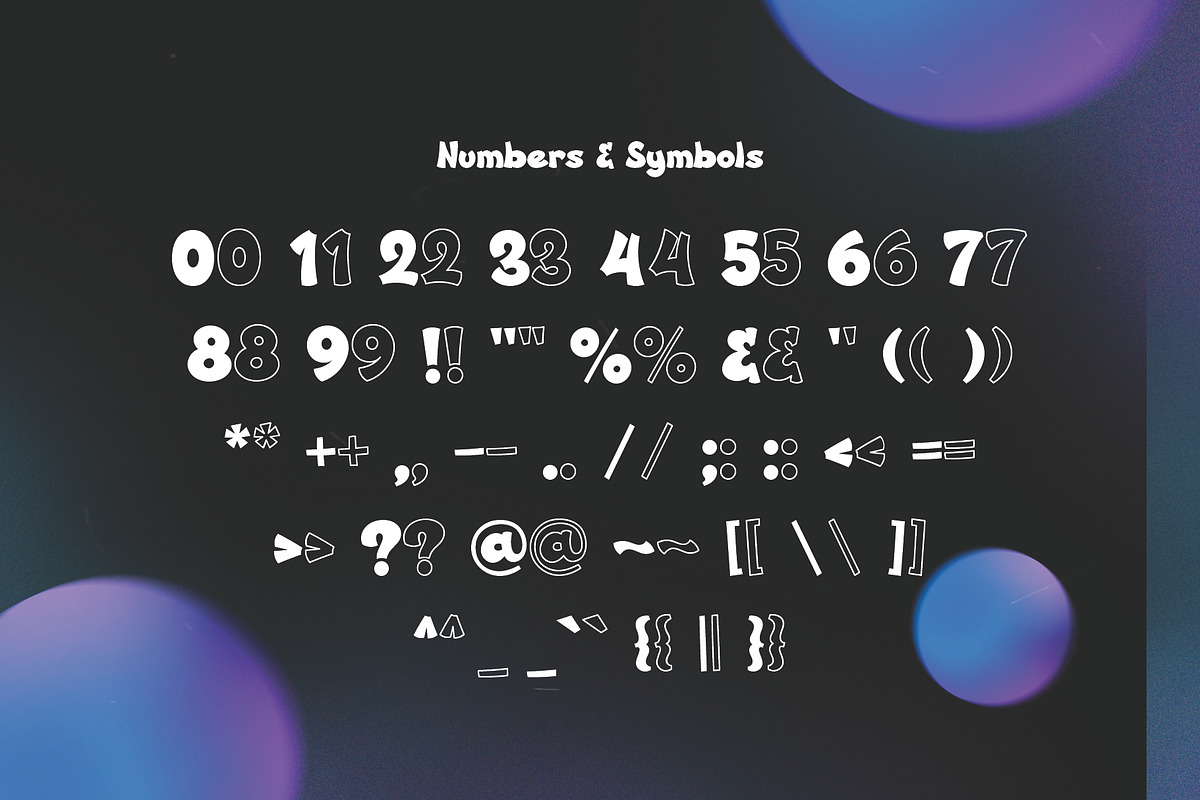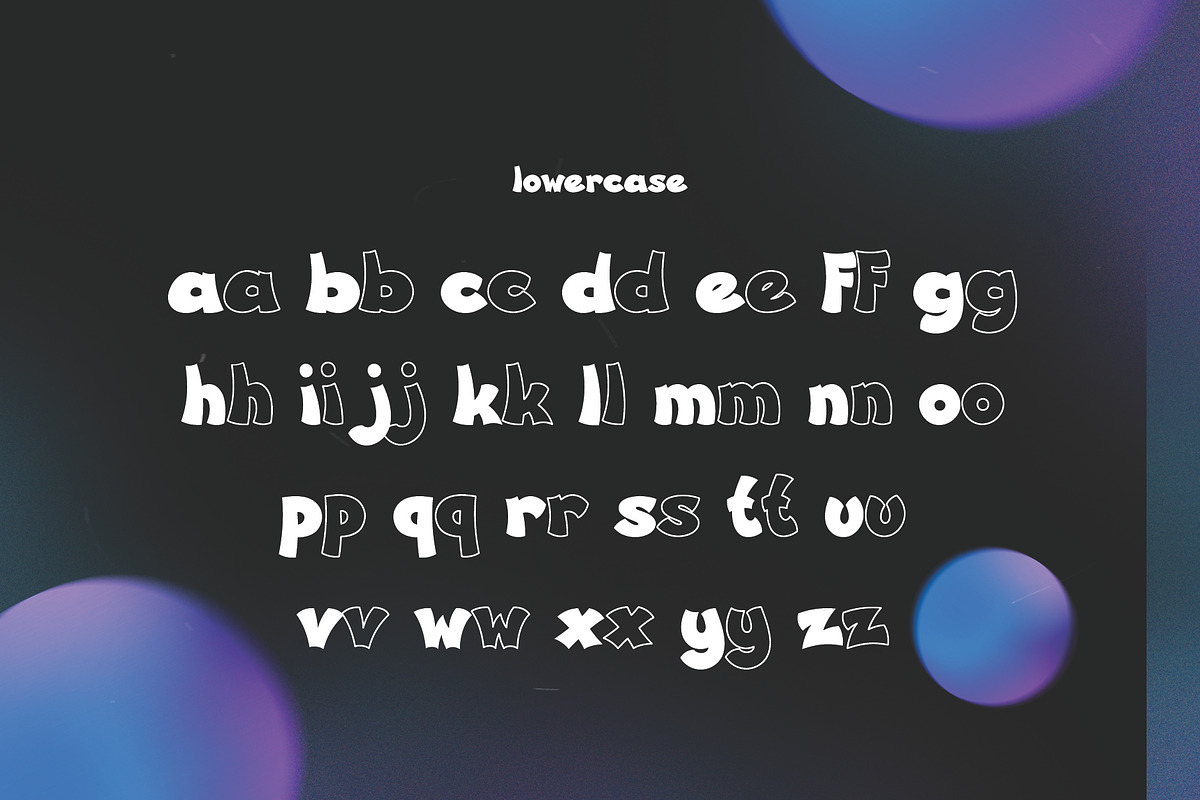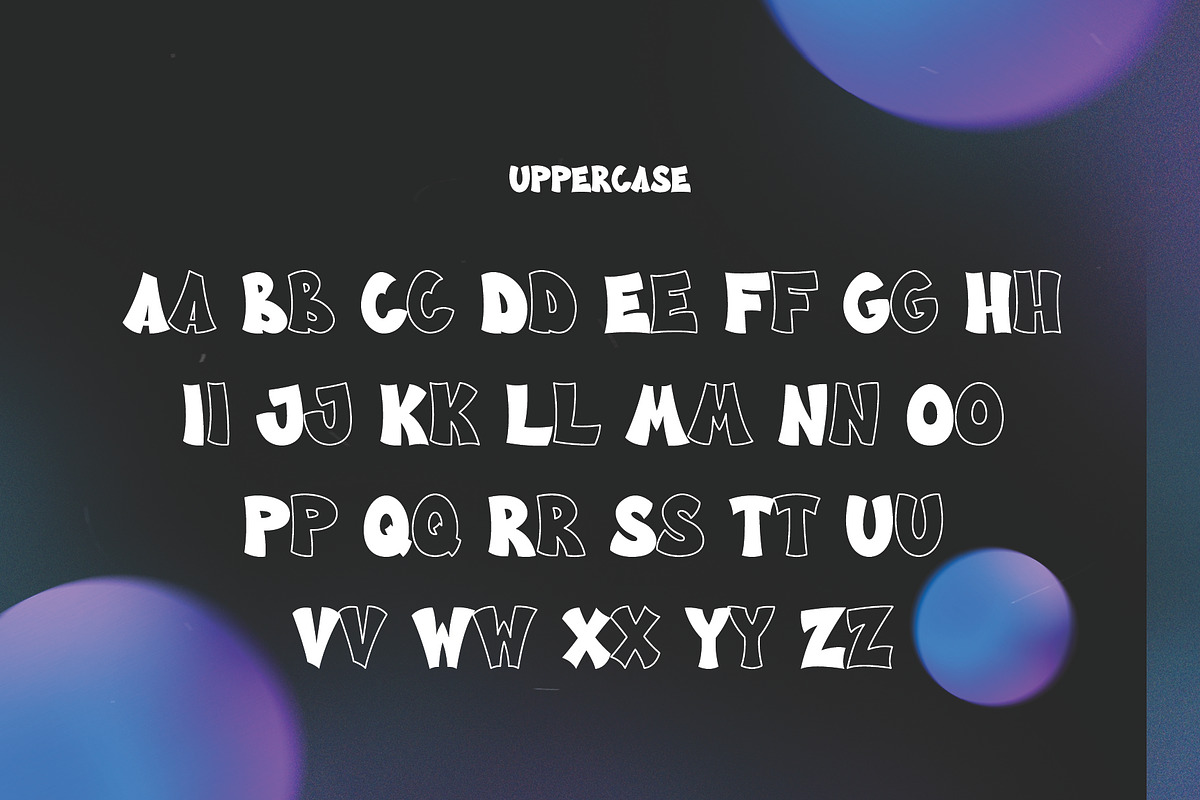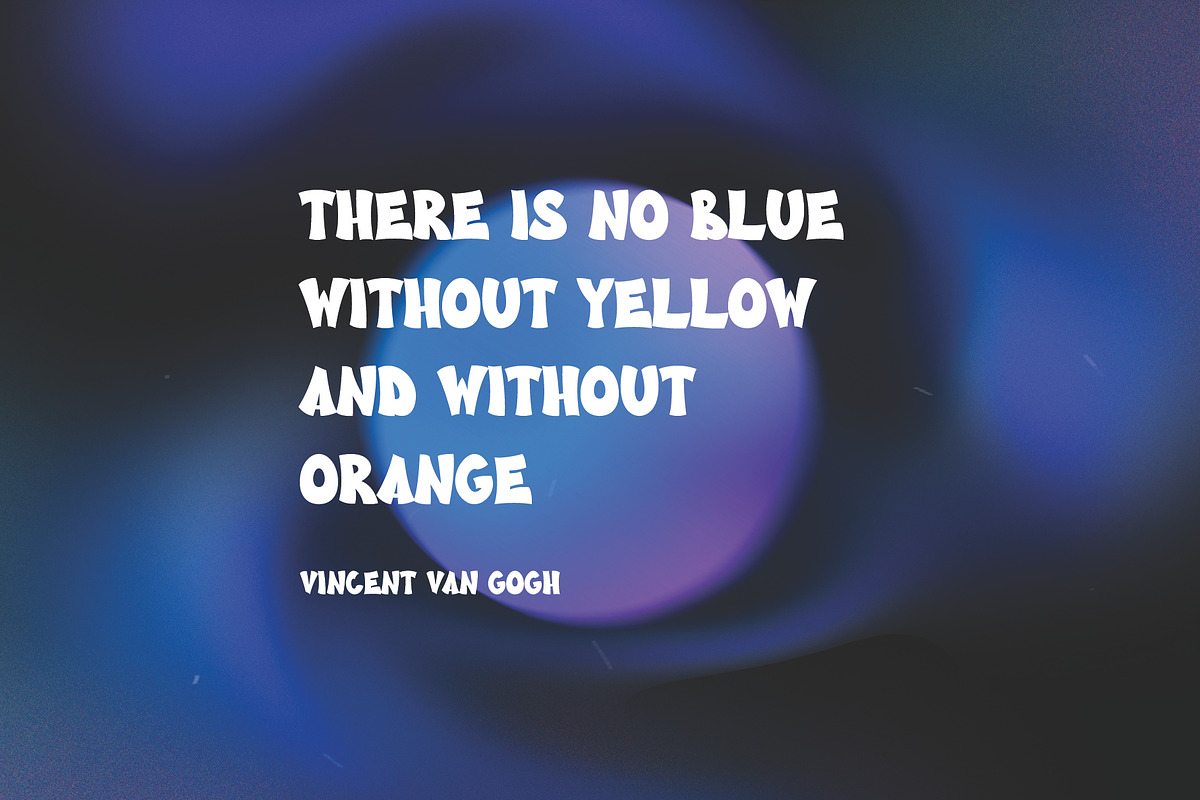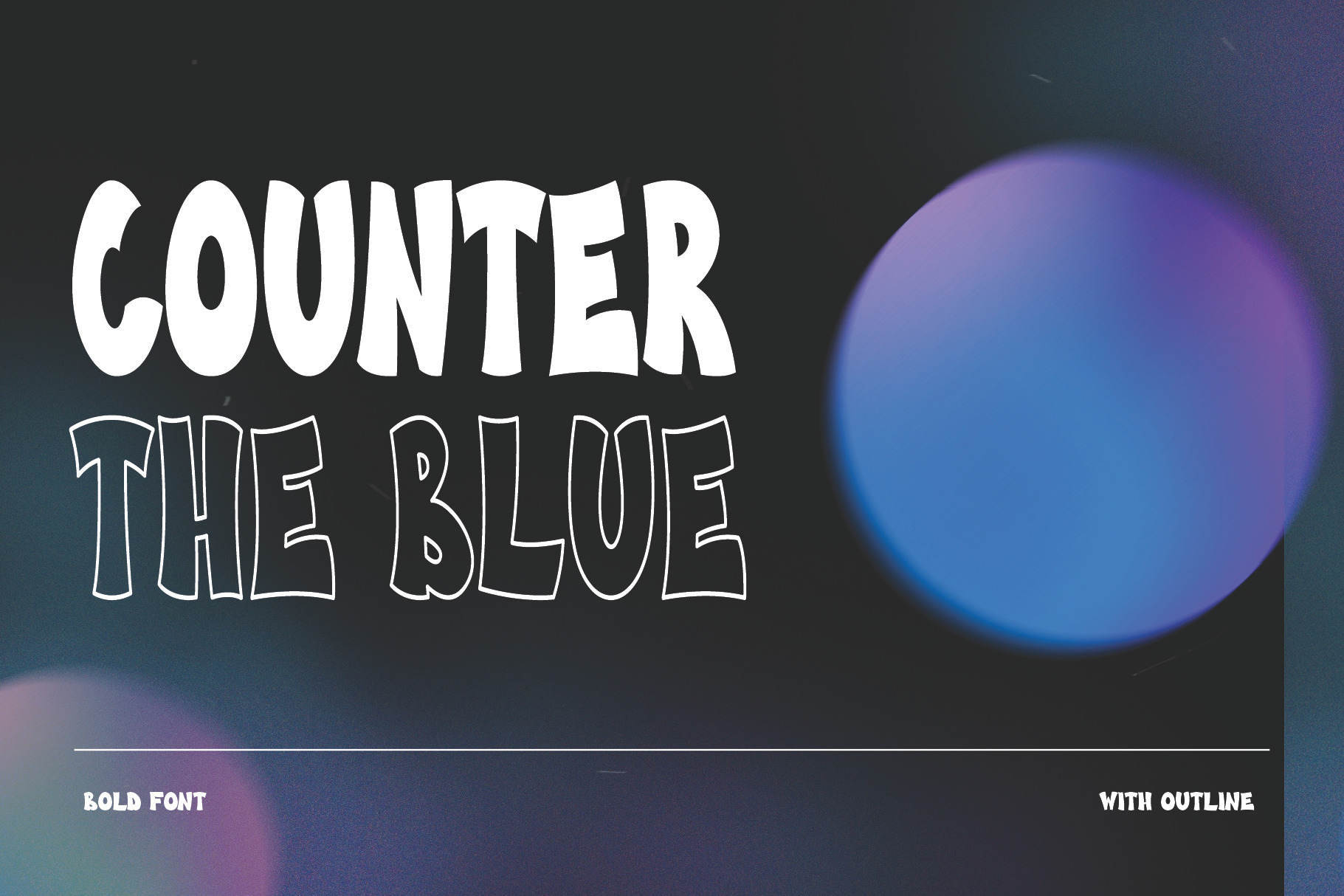
PGR Counter - Sharp Bubble Font
Introducing Counter, the perfect font for adding a playful yet bold touch to your designs! This handcrafted bubble font features thick, large letters with sharp edges, making it ideal for a variety of creative projects. Whether you’re designing children’s books, toy packaging, baby clothing, posters, or inspirational quotes, Counter will bring your ideas to life with its unique and eye-catching style.
Counter includes a complete set of uppercase and lowercase letters, numbers, and punctuation marks, ensuring you have everything you need for your design projects. Available in TTF, OTF, and WOFF formats, this versatile font is compatible with all your favorite design software.